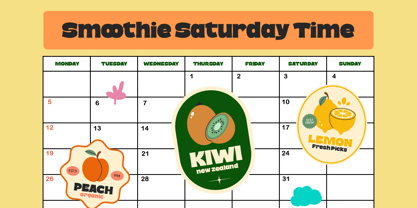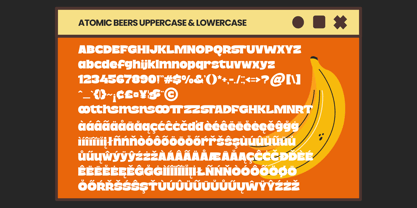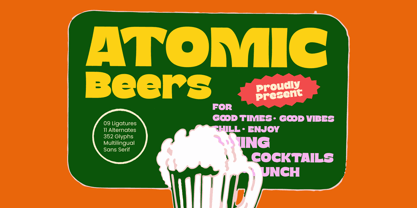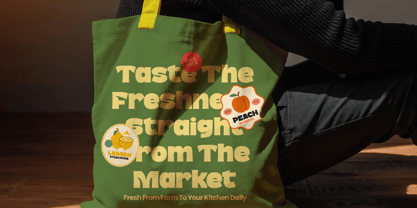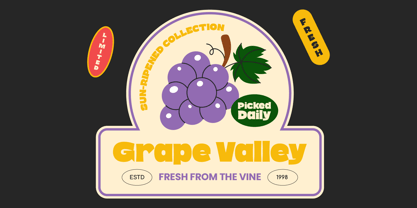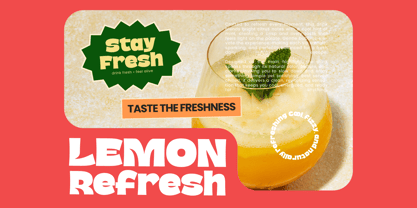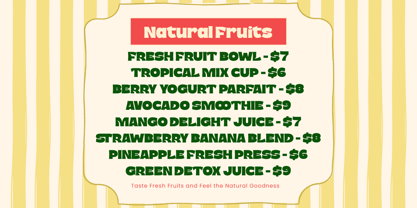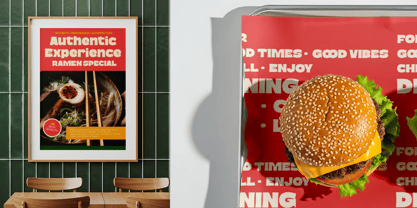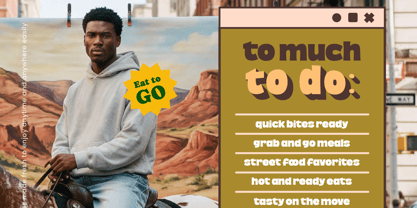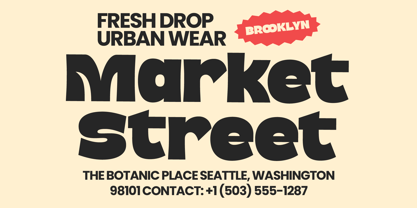
Atomic Beers
by Timelesstype Studio
The Atomic Beers Font Family was designed by Heru Utama Putra and published by Timelesstype Studio. Atomic Beers contains 2 styles and family package options. More about this family
Atomic Beers – Bold Sans Display Font Atomic Beers is a bold and fun display font designed for maximum impact. With its playful, vintage vibe, this font is perfect for projects that aim to grab attention and spread positive energy. Featuring 09 ligatures, 11 alternates, and 352 glyphs, it offers versatility and style, making it ideal for posters, signage, branding, and any design project that calls for a strong and friendly presence. This font is perfect for creating casual, vibrant designs, especially for beer labels, retro bar signage, event promotions, and anything related to good times and great vibes!